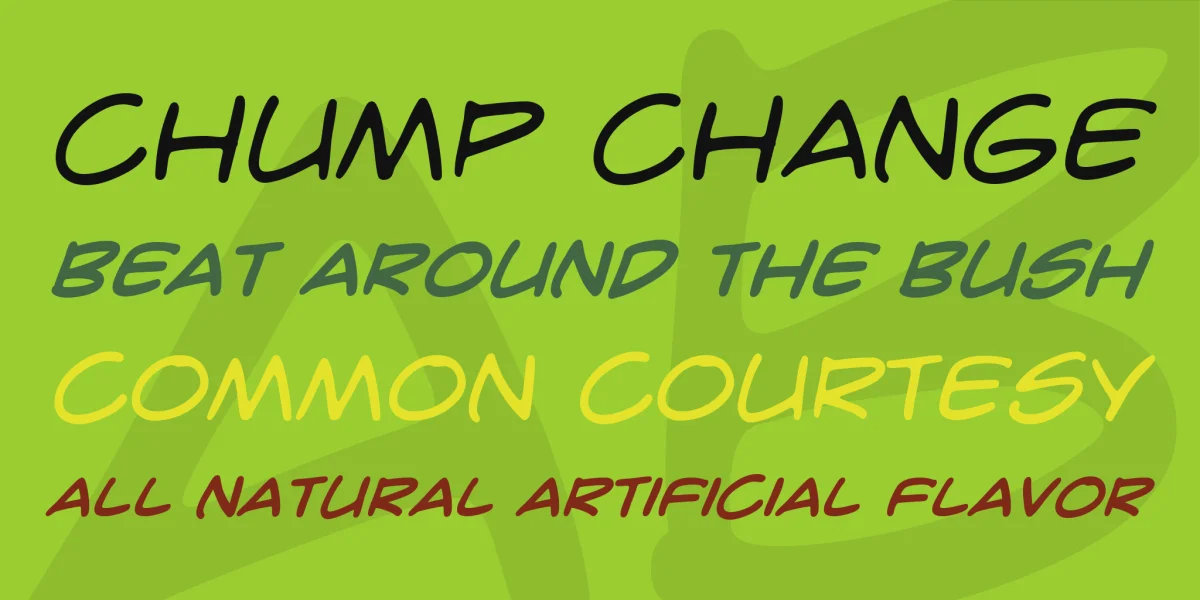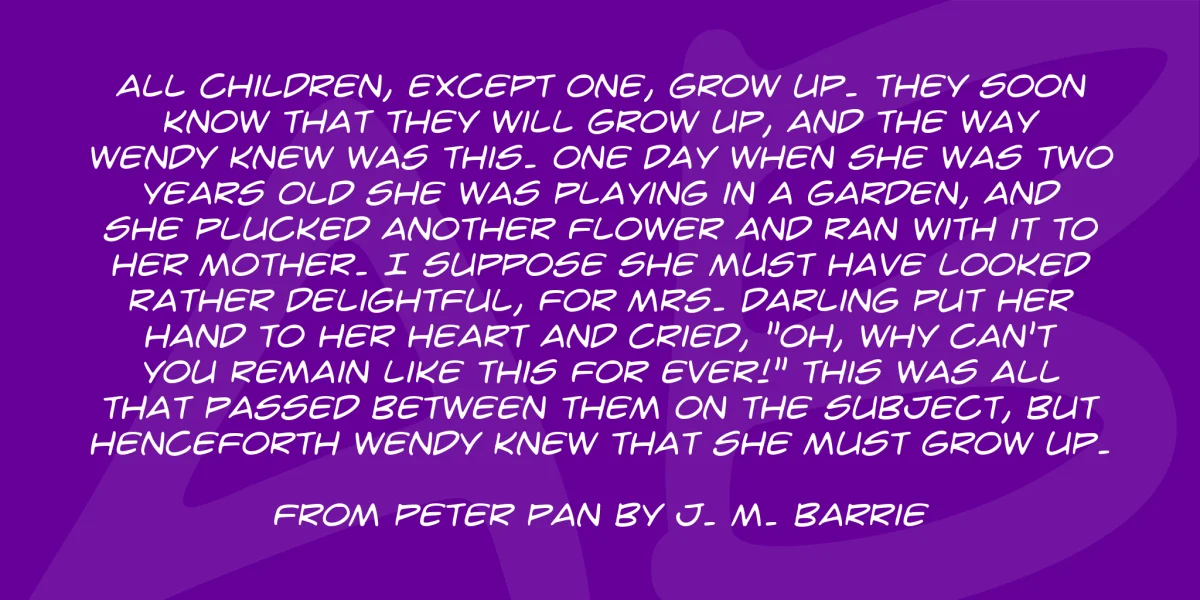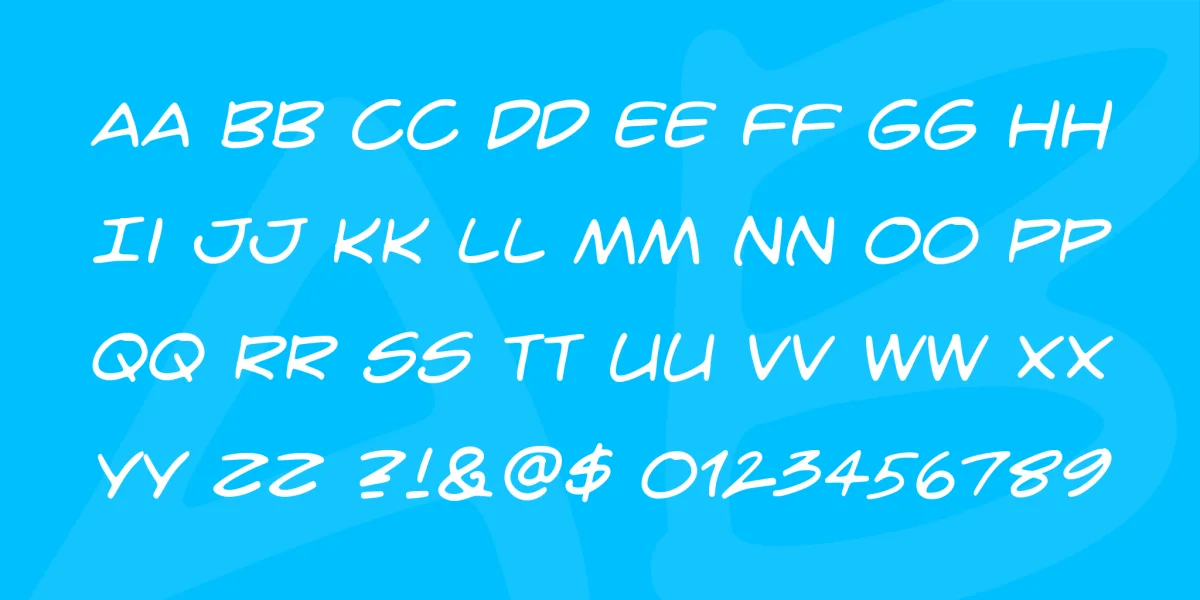
Hit the streets with this dialogue font and fear no criminal! It’s a balloon font with loose, relaxed forms, and a slight angle. Comes with Regular and Bold.